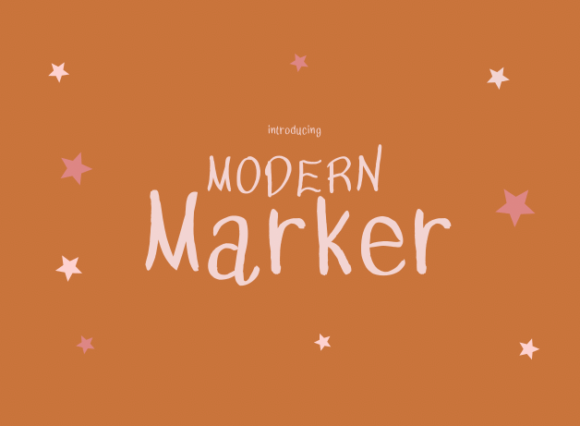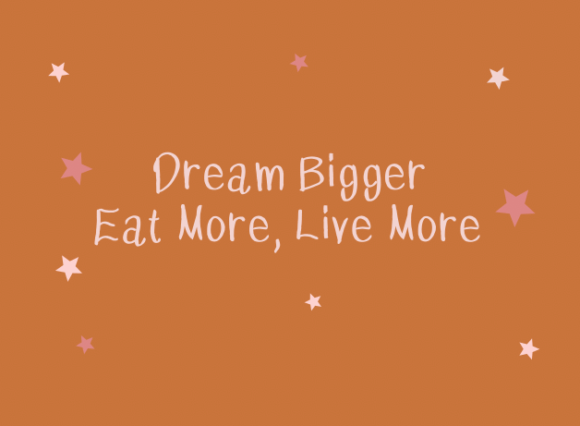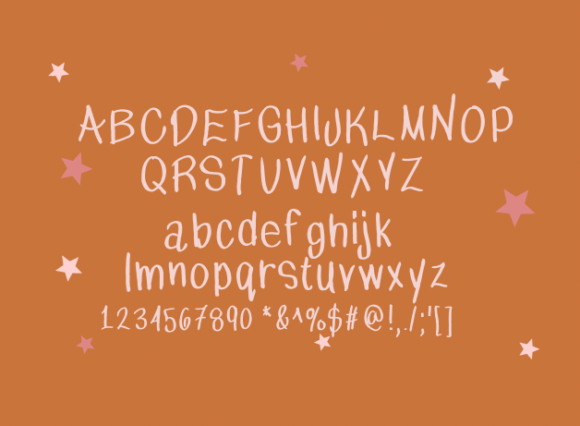
Modern Marker Font
About Modern Marker Font
“Modern Marker” is a whimsical and playful handwritten font that adds a touch of quirkiness and fun to your designs. Its versatility makes it an excellent choice for a wide range of creative projects, whether you’re engaged in crafting, digital design, creating presentations, or designing heartfelt greeting cards. This font has the potential to become your preferred choice for any occasion.
One of the standout features of “Modern Marker” is its ability to infuse your text with a sense of lightheartedness and creativity. The handwritten style of the font adds a unique and spontaneous touch to your projects, making it ideal for conveying a sense of fun and playfulness.
This font’s versatility is another noteworthy aspect. “Modern Marker” seamlessly adapts to various design contexts, ensuring that your creative possibilities are endless. Whether you’re creating DIY crafts, designing eye-catching digital graphics, delivering engaging presentations, or sending cheerful greetings through cards, “Modern Marker” adds a touch of whimsy and creativity.
Visualize using “Modern Marker” for your crafting projects and how it adds a playful and personal feel to your creations. Picture incorporating this font into your digital designs, making your graphics more approachable and inviting. When you choose “Modern Marker” for your presentations, your content becomes not just informative but also visually engaging and memorable. Sending greeting cards with “Modern Marker” as the font choice conveys a sense of warmth and a friendly tone that resonates with the recipient.
In conclusion, “Modern Marker” is more than just a font; it’s a versatile creative tool that brings a sense of quirkiness and fun to your design projects. Its whimsical and handwritten style make it an ideal choice for a wide range of applications, and its ability to infuse your projects with creativity sets it apart. “Modern Marker” is poised to become your go-to font for adding a touch of playfulness and personalization to your projects, ensuring that your creations are always warm, inviting, and memorable.